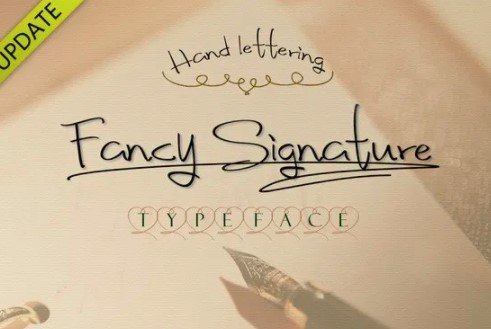
It can be used with celestina font contains more than 220 glyphs, unique icons special characters awesome ligatures, and unique designs that you will used all
We are presenting to you the finest typeface globally, the Fancy Signature Font, which is an impressive handwritten lettering typeface available for free with a wide variety of signature font styles.
It can be used with celestina font contains more than 220 glyphs, unique icons special characters awesome ligatures, and unique designs that you will used all of its assets in making gorgeous and unique designing layouts.